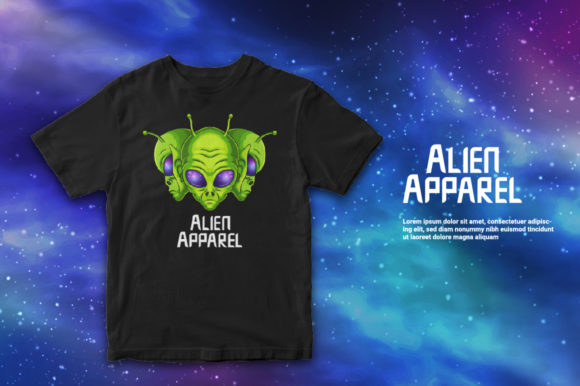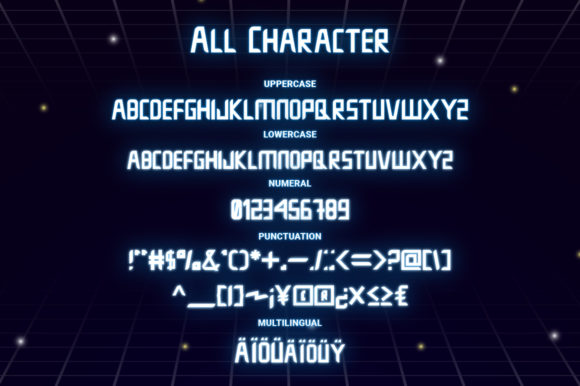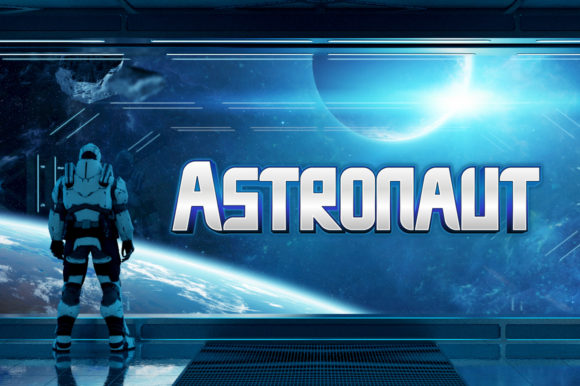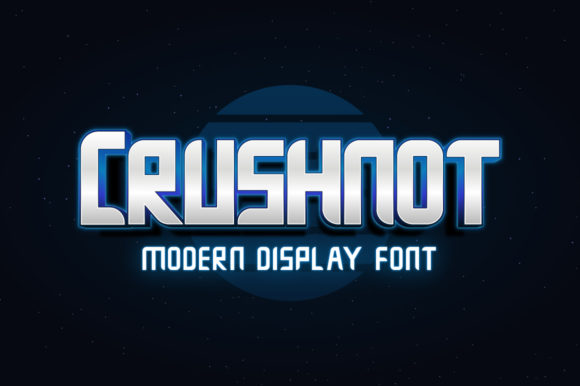
Unleash Your Creativity with Crushnot Font: A Bold and Modern Display Font
In the world of typography, fonts play a crucial role in conveying the tone and personality of a design. Whether you’re working on a formal or informal project, the right font can make all the difference. If you’re looking for a bold and modern display font that can elevate your designs, look no further than Crushnot Font. In this article, we’ll explore the features and benefits of Crushnot Font, and why it’s the ideal choice for a variety of design projects.
What is Crushnot Font?
Crushnot Font is a bold and modern display font that is designed to make a statement. With its sleek and edgy lines, this font is perfect for designers who want to add a touch of sophistication and elegance to their work. Whether you’re creating a logo, poster, or social media graphic, Crushnot Font is the perfect choice.
Key Features of Crushnot Font
- Bold and Modern Design: Crushnot Font features a bold and modern design that is sure to grab attention.
- Versatile: This font is versatile and can be used for both formal and informal designs.
- Easy to Read: Despite its bold design, Crushnot Font is easy to read, making it perfect for headlines and titles.
- High-Quality: Crushnot Font is a high-quality font that is designed to deliver exceptional results.
Benefits of Using Crushnot Font
So, why should you choose Crushnot Font for your design projects? Here are just a few benefits of using this amazing font:
- Adds Visual Impact: Crushnot Font adds a visual impact to your designs, making them stand out from the crowd.
- Enhances Creativity: With its bold and modern design, Crushnot Font can enhance your creativity and inspire new ideas.
- Perfect for Branding: Crushnot Font is perfect for branding projects, as it can help to create a strong and memorable identity.
- Easy to Pair: This font is easy to pair with other fonts, making it versatile and flexible.
How to Use Crushnot Font
Using Crushnot Font is easy. Here are a few tips to get you started:
- Headlines and Titles: Use Crushnot Font for headlines and titles to add a bold and modern touch.
- Logos and Branding: Use Crushnot Font for logos and branding projects to create a strong and memorable identity.
- Posters and Flyers: Use Crushnot Font for posters and flyers to grab attention and add visual impact.
- Social Media Graphics: Use Crushnot Font for social media graphics to add a touch of sophistication and elegance.
| Font Name | Crushnot Font |
| Author | Prioritype |